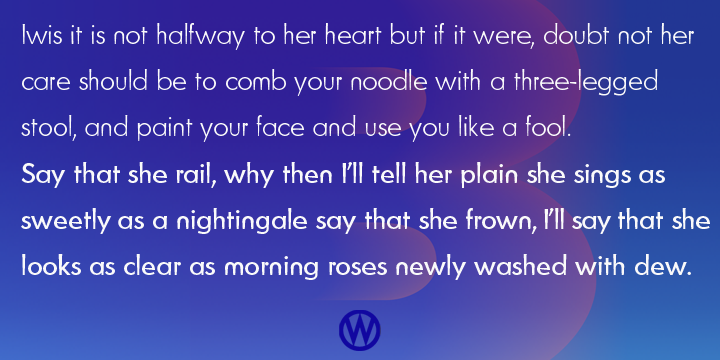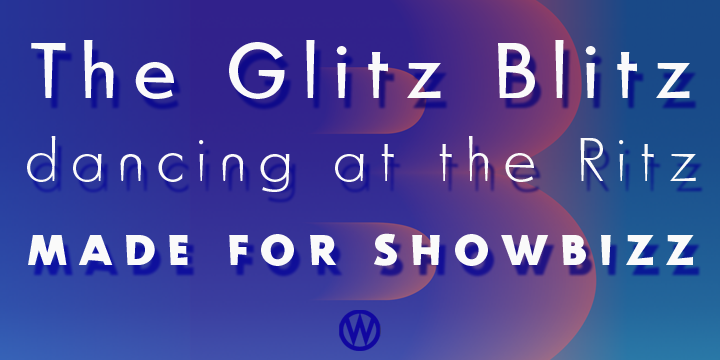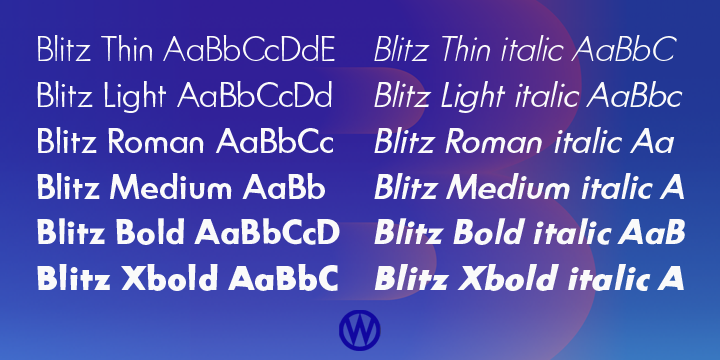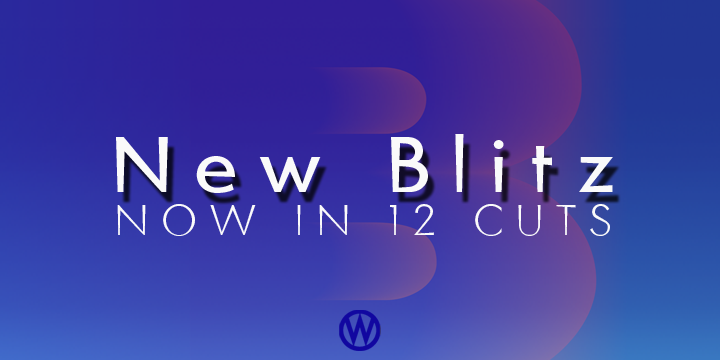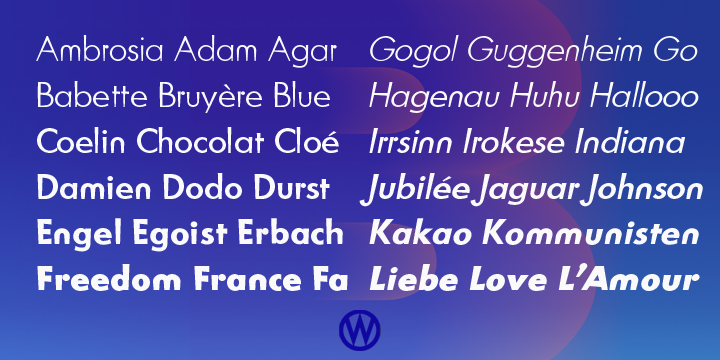
Blitz is a sans serif font family. This typeface has twelve styles and was published by Wiescher-Design.
A very glitzy Blitz! I always wanted to design a typeface that was top-heavy, but I never new how not to make it look like Antique Olive, until recently I had an idea. My new family is very readable despite it being top heavy, thin on the low end and thick on the upper end. The font gets a special shine because of this effect. And it stays readable despite its special design. Your designer of surprising typefaces Gert Wiescher